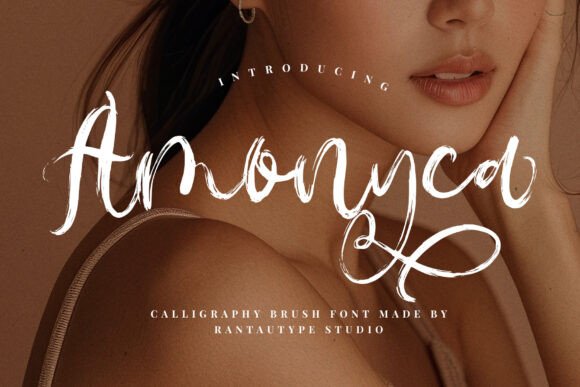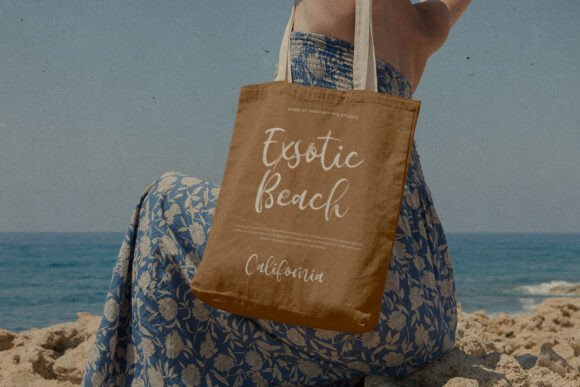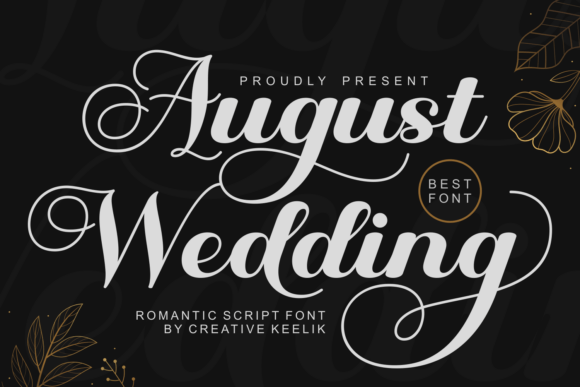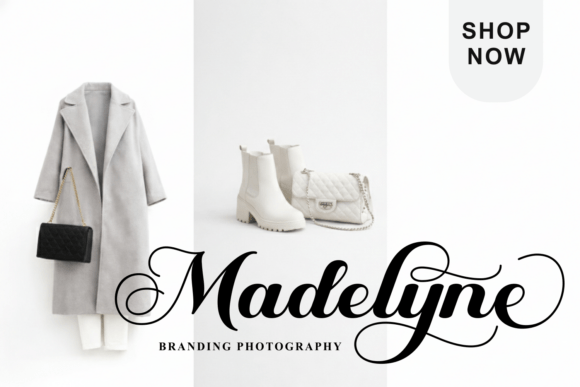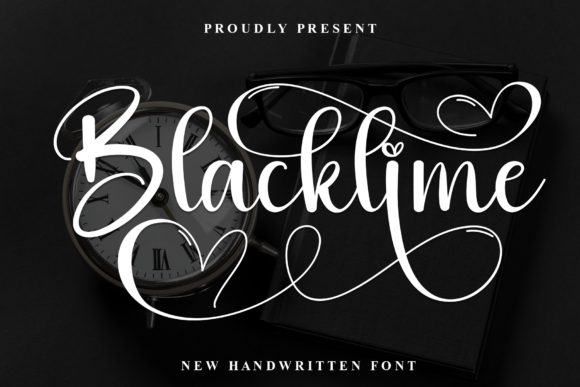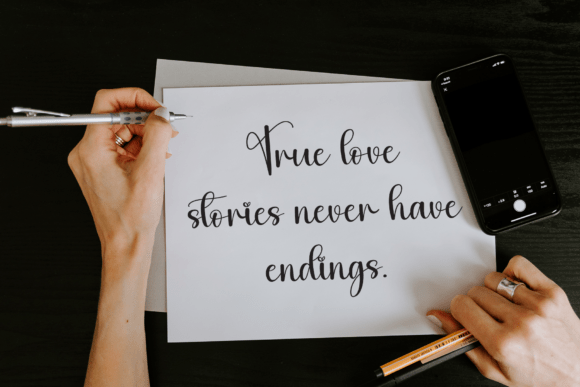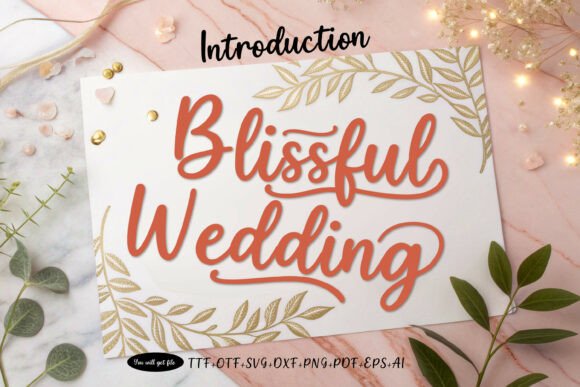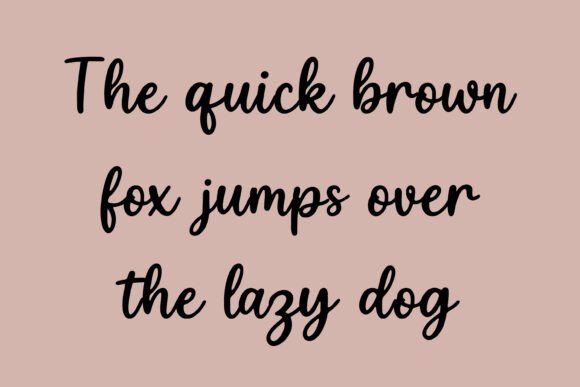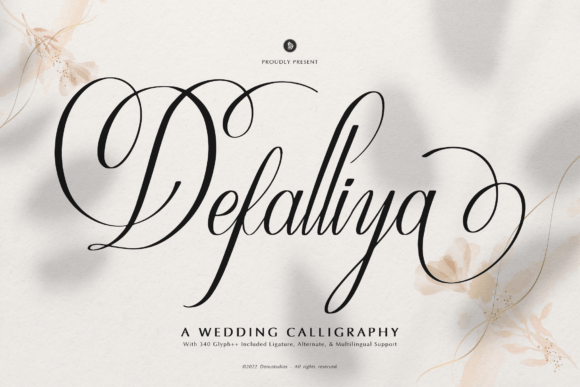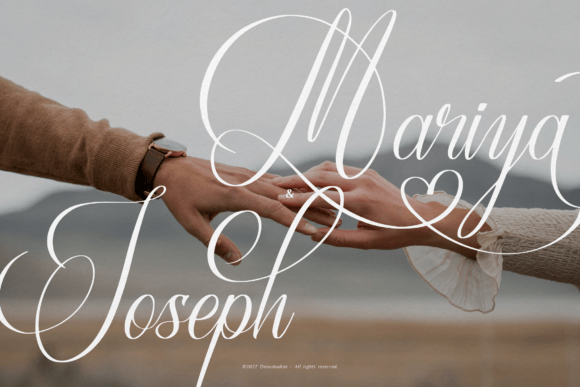
17 Exquisite Romantic Calligraphy Wedding Font Picks
Let’s be honest: luxury bridal design lives and dies by its details. When crafting an heirloom invitation suite, a standard script just won’t cut it. You need typography that carries genuine emotion and poetic grace. That’s why finding the perfect Romantic Calligraphy Wedding Font is always my top priority. Here are 17 of my favorite studio assets that instantly elevate any luxury layout.
1. August Romantic Calligraphy Wedding Font
August Romantic Calligraphy Wedding Font
There’s a very specific type of design magic required when you’re tasked with capturing the essence of timeless romance, and August handles it with absolute perfection. This breathtaking Romantic Calligraphy Wedding Font is an absolute masterpiece of sweeping swashes and sophisticated flourishes, instantly elevating any canvas it touches. It completely strips away any rigid or sterile feel and replaces it with an ethereal grace, making it the premier choice for luxury bridal branding where every letter needs to feel deeply personal, elegant, and high-end.
What makes me keep returning to this gorgeous Romantic Calligraphy Wedding Font for high-stakes luxury events is how effortlessly it translates from high-resolution digital screens to physical, textured paper goods. I’ve found it to be an absolute dream asset for crafting bespoke, editorial wedding invitations, elegant place cards, and commanding event signage that demands a premium, sophisticated finish. If you want your wedding typography to feel less like a standard script template and more like a hand-carved piece of art, dropping August into your creative mix is a no-brainer.
2. Amonyca Romantic Calligraphy Wedding Font
When you love the timeless elegance of traditional marriage scripts but want to inject a shot of fresh energy and contemporary flair into your layout, Amonyca is the exact tool you should grab. This beautifully chic Romantic Calligraphy Wedding Font steps away from rigid, delicate hairlines and instead leans into rich, thick flourishing lines rendered with a natural brush texture. It feels completely alive and hand-painted right on the spot, bringing an organic, high-end warmth to the canvas that instantly gives your design a fresh and distinctive presence.
I’m always on the lookout for a Romantic Calligraphy Wedding Font that can break through the expected, sometimes stuffy bridal aesthetic, and Amonyca does it beautifully. The textured look of the brush strokes makes it a spectacular asset for modern lifestyle-oriented bridal branding, contemporary wedding stationery, and eye-catching reception details like cocktail menus or custom backdrop signage. It effortlessly balances that intimate, classic romance with a relaxed, modern-chic vibe, ensuring your final composition feels deeply authentic and totally unforgettable.
3. Miss Roderick Romantic Calligraphy Wedding Font
Finding a script that strikes the perfect balance between razor-thin delicacy and high-contrast drama can be a massive challenge, but Miss Roderick handles it with absolute poise. This stunning Romantic Calligraphy Wedding Font practically radiates high-society sophistication and classic romantic flair with every single anchor point. Built with incredibly graceful loops and refined, slender lines, it brings a traditional, editorial dignity to the artboard that instantly elevates a layout into a luxury work of art.
What makes this Romantic Calligraphy Wedding Font a permanent resident in my active typography collection is the incredible depth of its OpenType features, packing over 280 glyphs, fluid ligatures, and stylistic alternates. Having that many customization options means you can tweak individual letters to weave together perfectly, making it an absolute powerhouse for formal invitation suites, upscale event stationery, and sleek, signature-style logos. If you are building out a high-end bridal identity where a basic, standard script just won’t cut it, Miss Roderick provides that flawless, high-contrast polish your visual hierarchy is begging for.
4. Lil’Baby Romantic Calligraphy Wedding Font
If you want to lean heavily into a whimsical, fairytale aesthetic rather than an ultra-stuffy traditional script, Lil’Baby is going to steal your heart completely. This incredibly charming Romantic Calligraphy Wedding Font effortlessly blends a modern calligraphy style with a soft, dreamy attitude that feels absolutely magical on the page. It drops a beautiful dose of romantic vibes into your workspace, trading rigid structural lines for fluid, organic letterforms that look entirely effortless, intimate, and fluid.
On the production side, what makes this Romantic Calligraphy Wedding Font an absolute asset in my studio is its robust global versatility, packing full multilingual diacritics alongside extended Latin and Greek character support. In my own styling experiments, I’ve found it to be an absolute home run for dreamy wedding invitation suites, especially when you pair its custom ligatures with a soft pastel color palette and heavy, creamy textured papers. If you are trying to craft a bespoke bridal identity or a heartfelt stationery set that feels deeply elegant and ethereal, Lil’Baby delivers that perfect, hand-drawn look.
5. The Sunday Lovely Romantic Calligraphy Wedding Font
It is not every day you stumble upon a typeface that beautifully bridges the gap between structured editorial elegance and fluid, organic script lines, but The Sunday Lovely manages to do exactly that. This unique Romantic Calligraphy Wedding Font flips the script by blending a classic serif foundation with a warm, handwritten touch. Instead of feeling overly formal or stiff, it breathes a refreshing, intimate romance into your artboards, ensuring your main headings look incredibly sophisticated while retaining an approachable, hand-crafted soul.
Conclusion
At the end of the day, high-end wedding typography shouldn’t feel like a sterile digital file; it should feel like custom-inked art. Choosing the right Romantic Calligraphy Wedding Font allows you to weave poetry straight into your visual hierarchy. Drop these into your active workspace, play around with their elegant OpenType alternates, and let your layouts tell a beautiful story.